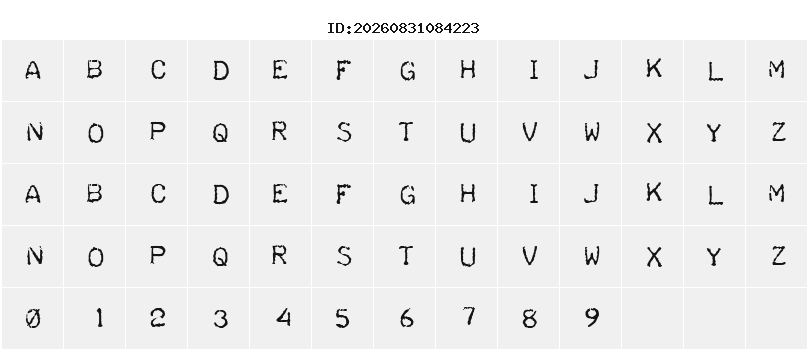
• Font Name: Teleprinter
• Font Style: Intalic
• Full Font Name: Teleprinter Intalic
About Teleprinter.ttf
Teleprinter.ttf is a modern, elegant sans-serif font designed for ultimate readability and visual harmony. Perfect for branding, headlines, web design, and print materials.